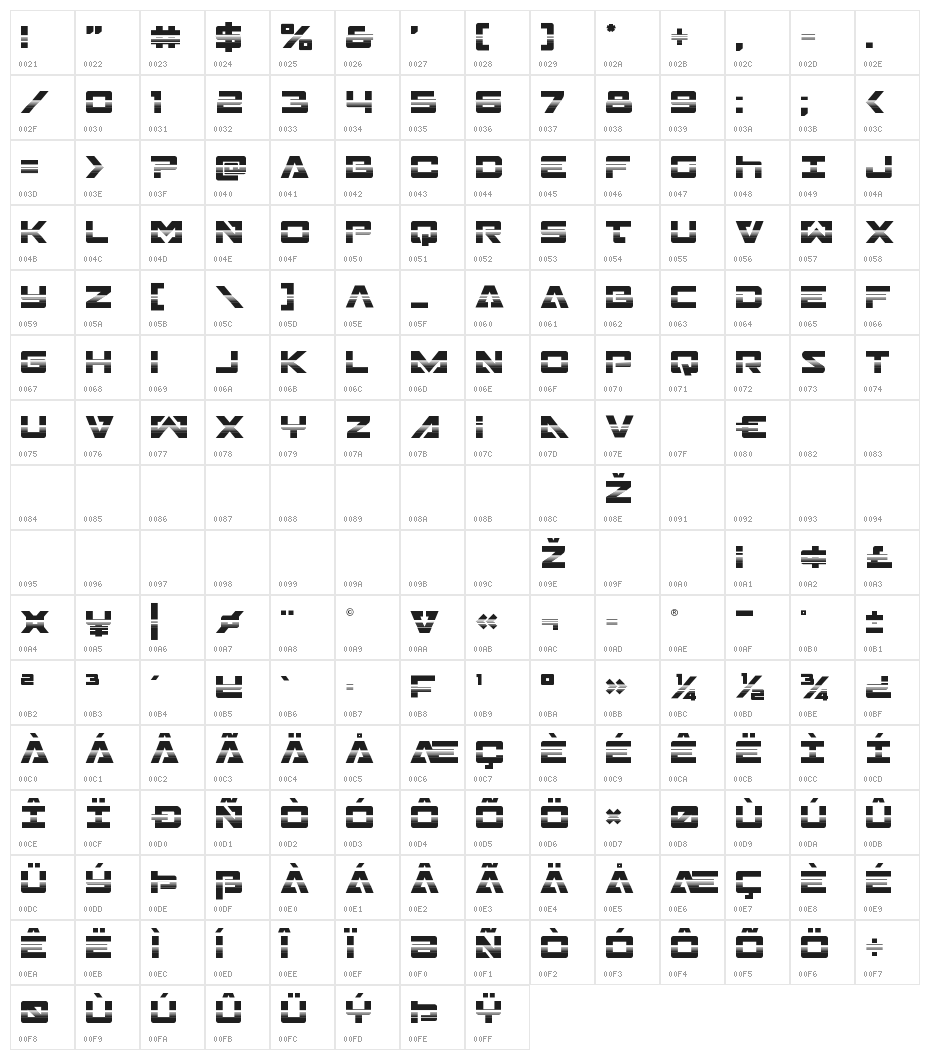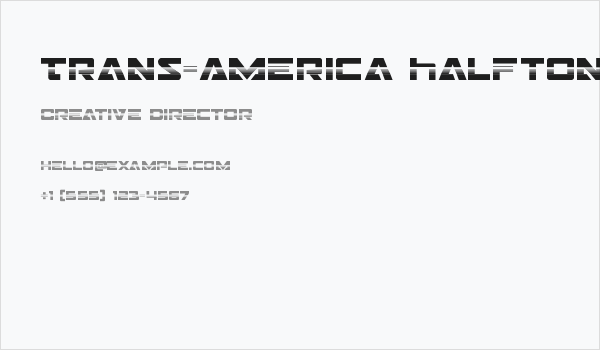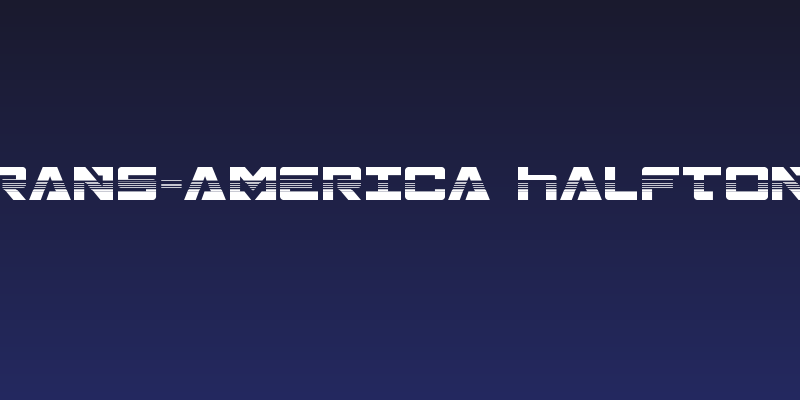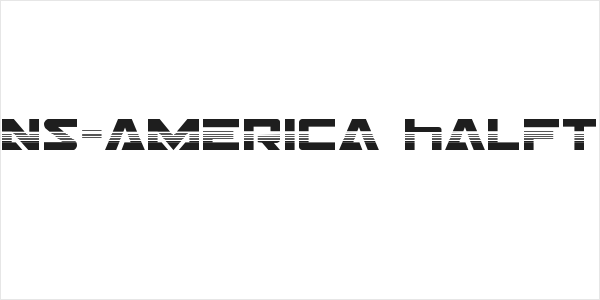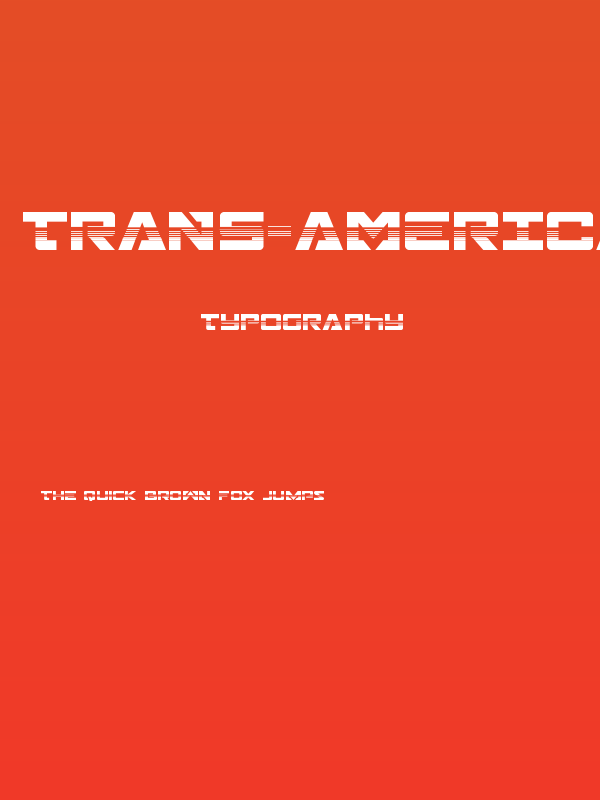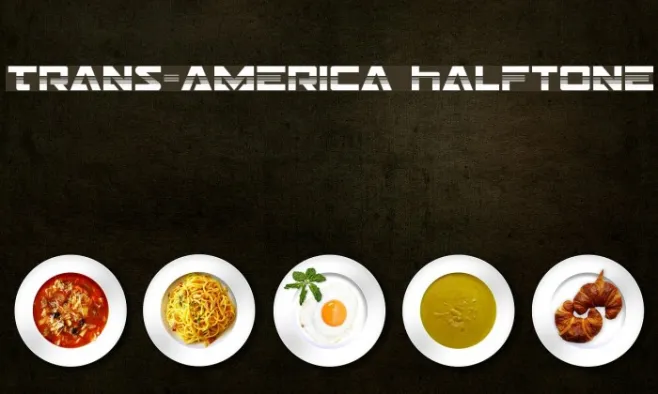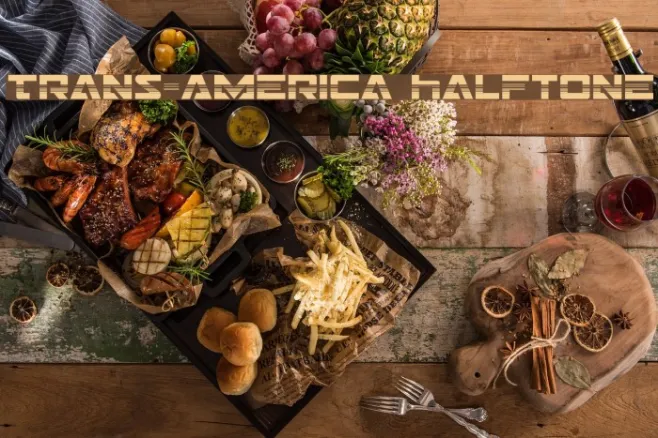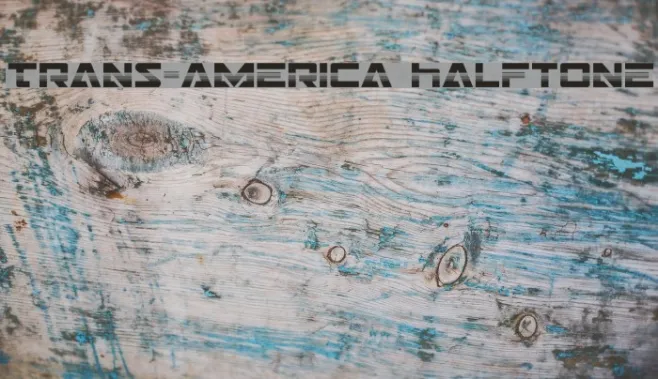
Trans-America Halftone Font
Trans-America Halftone Description
This font features a bold, futuristic design with a halftone effect that creates a sense of movement and dynamism. The characters are constructed with horizontal lines that vary in thickness, giving a unique textured appearance. The geometric shapes and sharp angles contribute to a modern and edgy look, making it stand out in any design. The uppercase letters are particularly striking, with a strong presence and clear readability. The numbers and special characters maintain the same stylistic elements, ensuring consistency across all text elements.
TRANS-AMERICA-HALFTONE UPPERCASE
TRANS-AMERICA-HALFTONE LOWERCASE
TRANS-AMERICA-HALFTONE OTHER CHARS
| Proposed Projects | Ideal for sci-fi themed posters, modern branding, video game titles, and tech-related projects. |